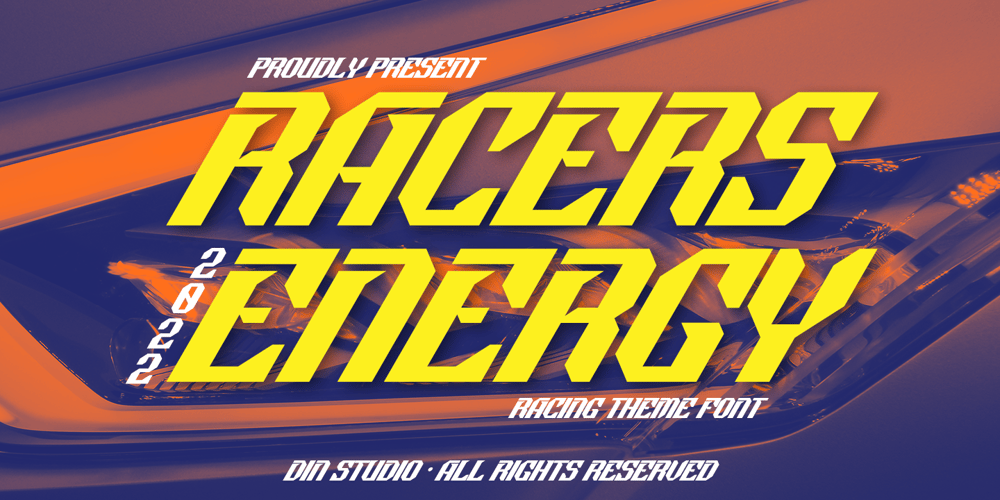
Racers Energy Font Family was designed by Donis Miftahudin and published by Din Studio. Racers Energy contains 1 styles and family package options. Do you want energetic designs?Racer energy is a font created in capital letters with the racing theme producing courageous strong impressions in no time making it worth adding to your design list. Letters are made similar to firm rectangle blocks with sharp-angles. Enjoy other incredible features available on this font.Features: Multilingual Supports PUA Encoded Numerals and Punctuation This font looks great on any design projects such as posters, banners, logos, book covers, headings, printed products, merchandise, social media, etc. Find out more ways to use this font by taking a look at the font preview.Purchase it now. Happy designing.